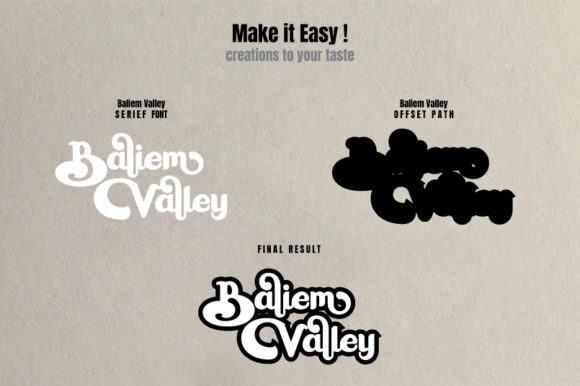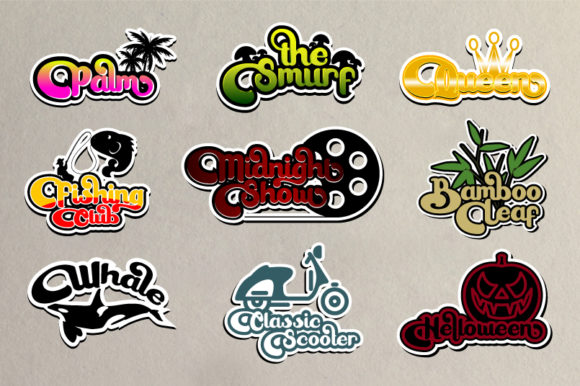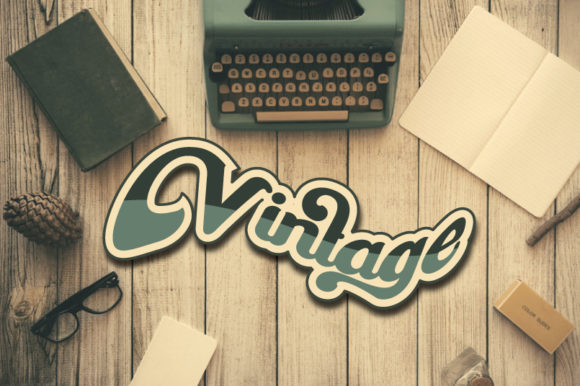
Introduction to Baliem Valley Font
Baliem Valley is a cool, retro styled display font.
This original look will appeal to a wide range of crafty ideas, from letterheads and titles, to stationery .
Key Features of Baliem Valley Font